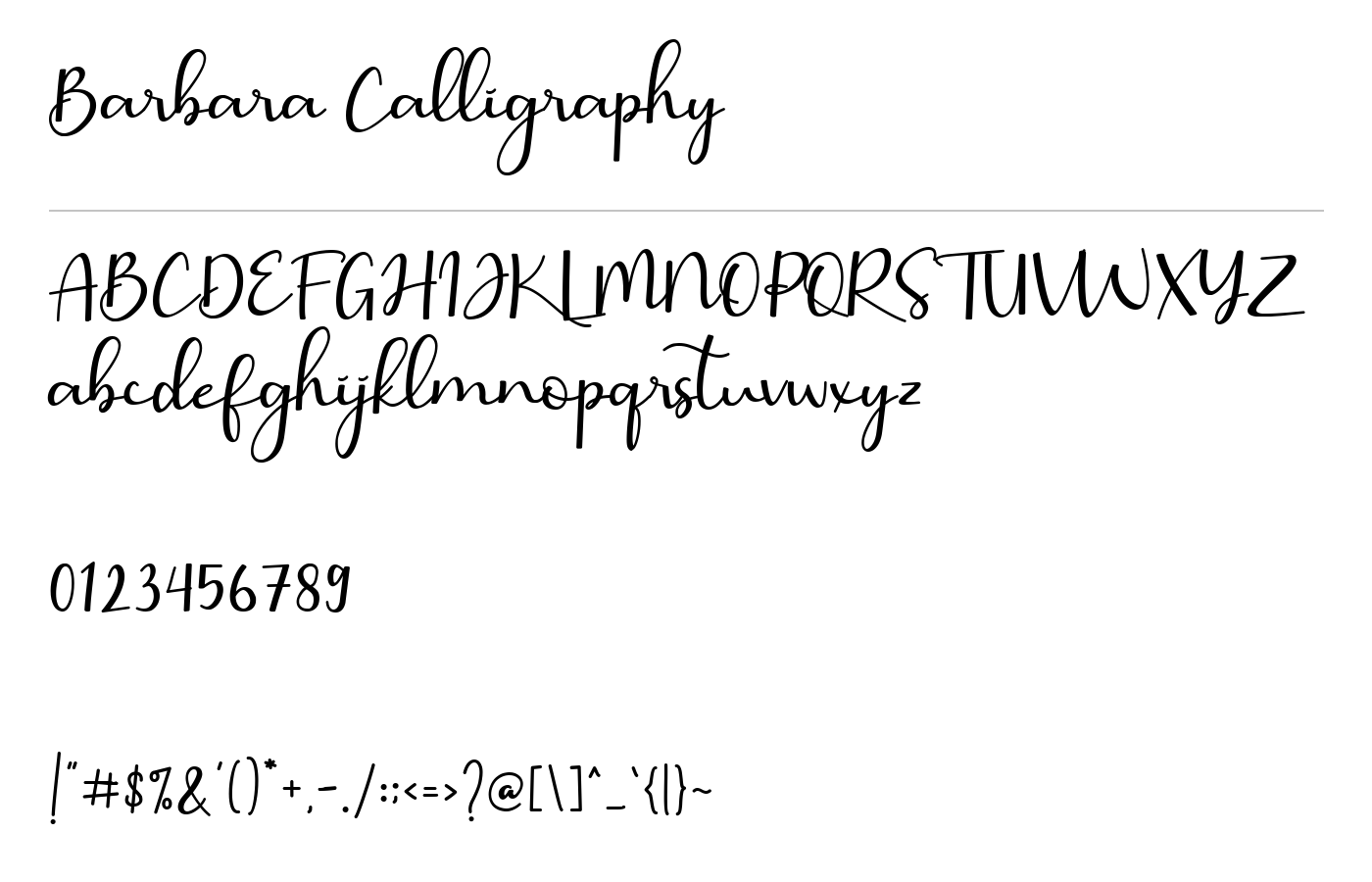
Barbara Calligraphy is an elegant, light-weight script font with a natural, handwritten feel that combines tall, flowing letterforms with a casual charm. Its smooth strokes and delicate curves make it ideal for stylish invitations, branding, and creative projects seeking a personal, graceful touch. This font works beautifully in headlines and decorative uses where a modern yet warm calligraphic style is desired.
Barbara Calligraphy Font
About Barbara Calligraphy Font
| Font family | Barbara Calligraphy Font |
| Designer | AEN Creative Studio 2020 |